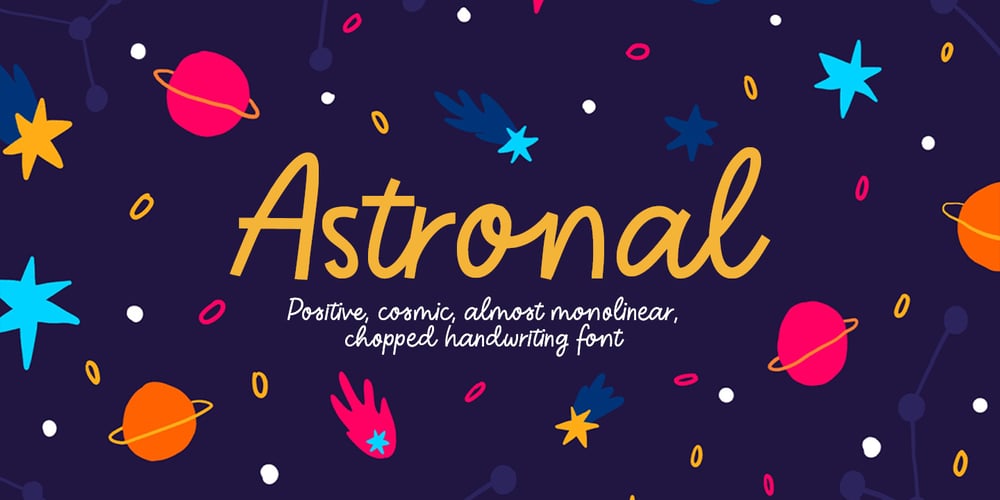
Astronal Font Family was designed by Dmitrii Chirkov and published by Supfonts. Astronal contains 1 styles and family package options. Astronal is a funny handwritten font. It is perfect for branding, wedding invitations, menu design, YouTube covers or anything that requires a fun and happiness look :)Test it out below to see how it could look for your next project!Includes:- Latin languages supportCheck out my blog:- https://www.instagram.com/superdizigner- https://pinterest.com/dmitriychirkov7